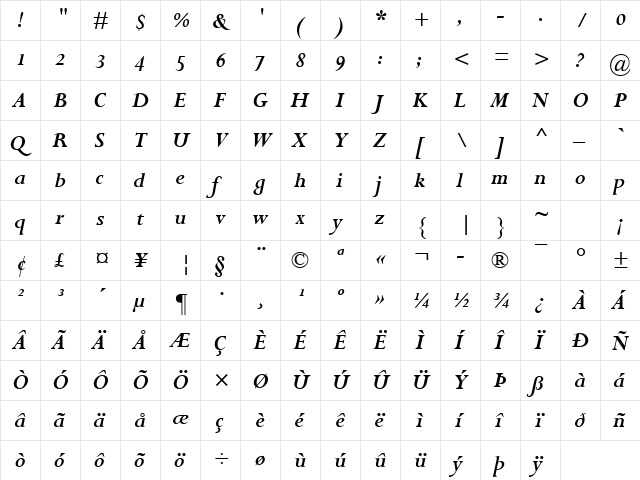
Perpetua SC Bold Italic Font Preview
Design Context for Perpetua SC Typeface
Perpetua SC offers clean, dependable letterforms without strong stylistic allegiance, making it a practical choice for designers who need flexibility. The slanted form adds forward momentum and visual energy. The heavy weight commands attention and anchors typographic hierarchies.